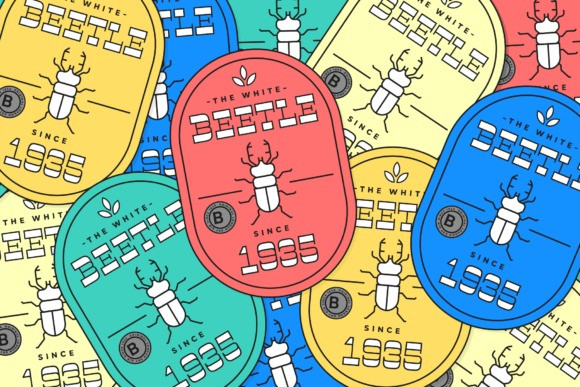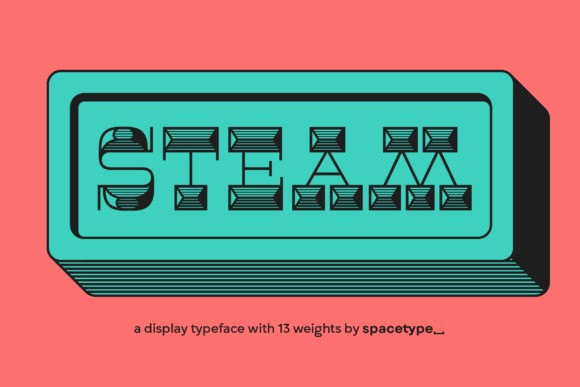
Steam Font
Steam Font is a cool and interestingly designed display font. It will elevate a wide range of crafting ideas, from cards, to branding, labels and much more. Add it confidently to your favorite creations and let yourself be amazed by the outcome generated.